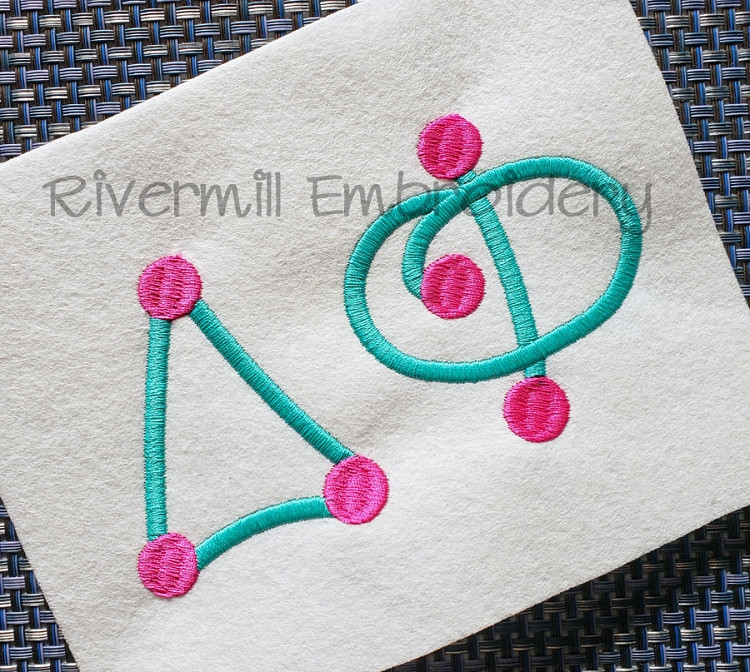
Large Greek Dots 2 Color Machine Embroidery Font Alphabet
This set comes with upper case GREEK letters in 3 sizes:
Each letter is two colors - the dots are one color and the "legs" are the second color.